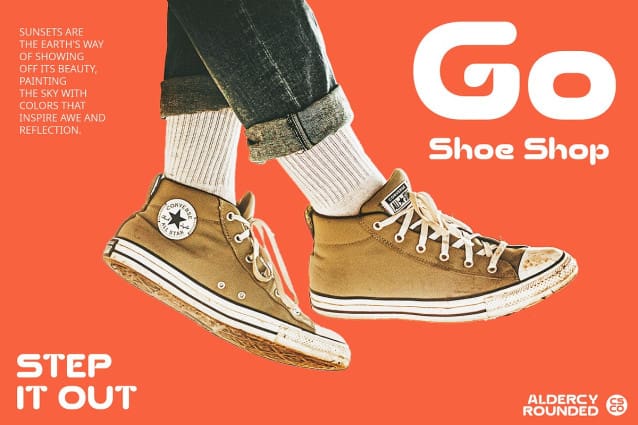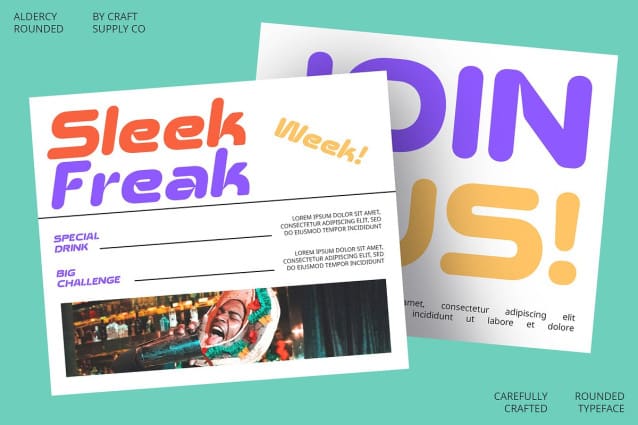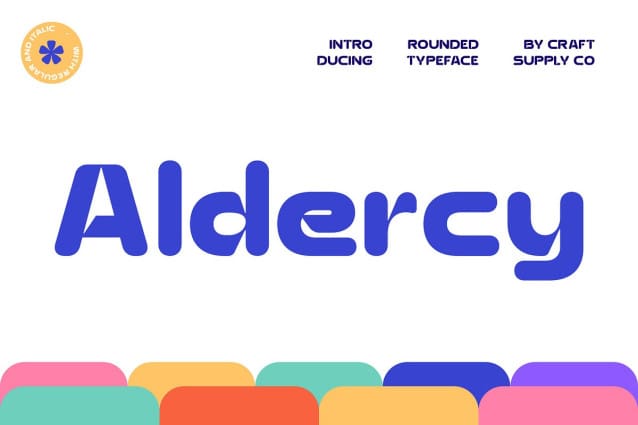
Aldercy Rounded Font
Aldercy Rounded Font is a sans serif modern font that combines bold and rounded shapes, offering a contemporary flair with a soft, approachable aesthetic. Ideal for designs seeking a balance between boldness and friendly appeal, it is well-suited for various digital and print applications, from branding to user interfaces.
With its rounded edges and bold forms, Aldercy Rounded stands out with a distinctive visual appeal that catches the eye while maintaining readability. Whether used for headlines, body text, or branding elements, this font adds a touch of modernity and warmth to any design.
From sleek digital interfaces to engaging print materials, Aldercy Rounded adapts seamlessly across different platforms and mediums. Its clear and legible characters ensure optimal readability, making it a reliable choice for websites, apps, posters, and more.
Elevate your branding efforts with Aldercy Rounded, a font designed to enhance brand identity with its contemporary yet approachable style. Whether creating a new logo or refreshing existing brand assets, this font brings a blend of professionalism and friendliness to your visual identity.